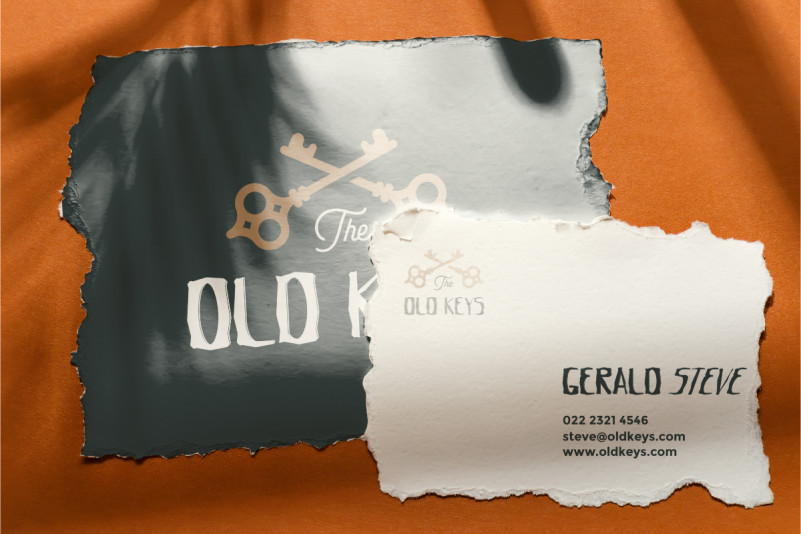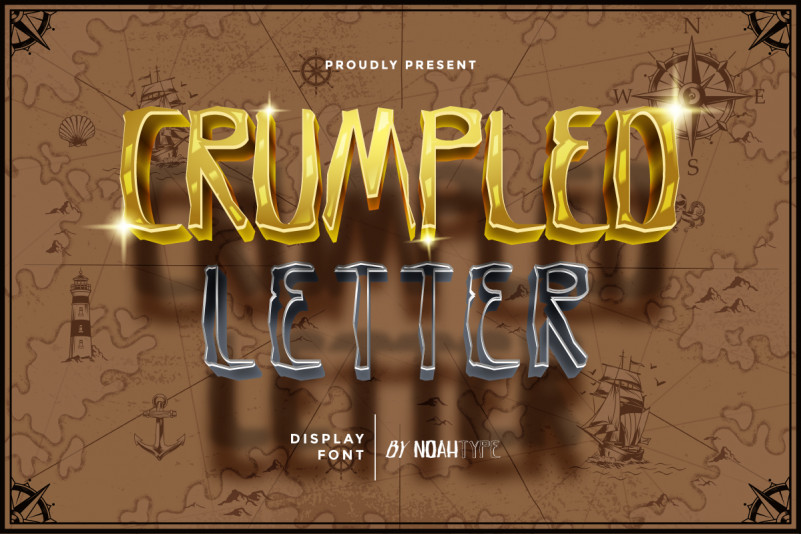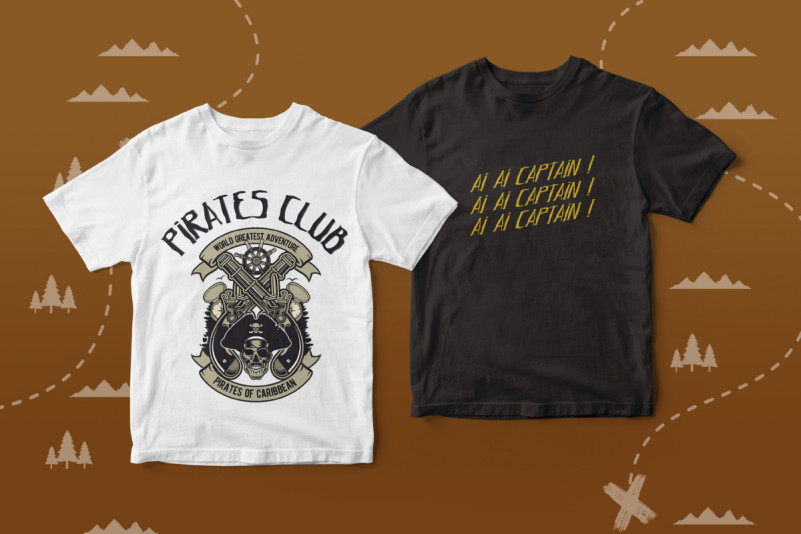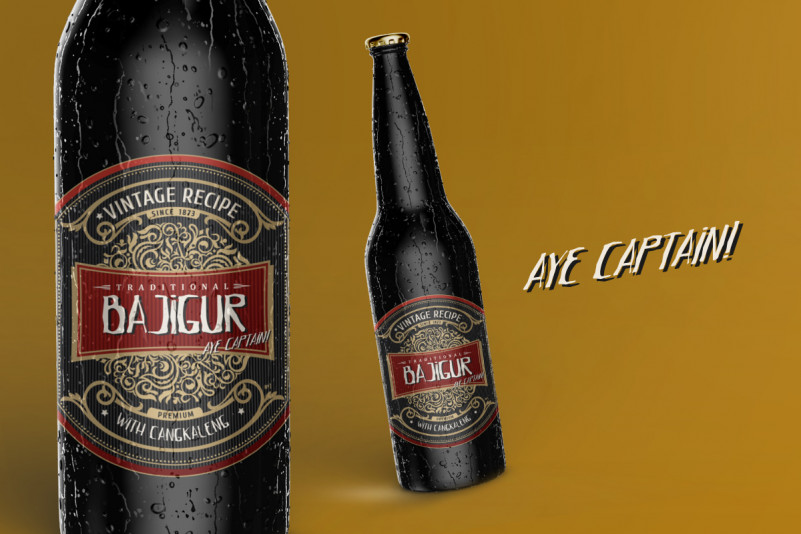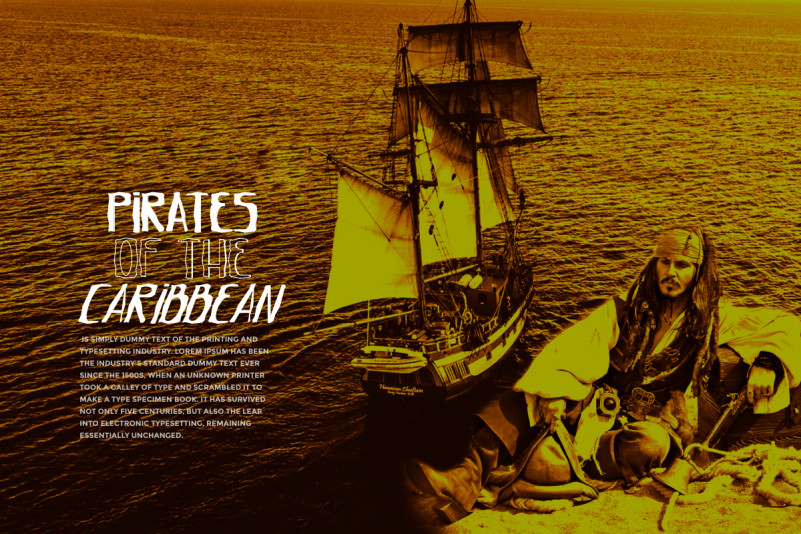
Crumpled Letter Font
Crumpled Letter Display Font
This is a unique display font with five great styles. The font was inspired from vintage classic lettering. It has a unique style that will bring the special effect to the design. It will works for events, wedding, branding, artist, make up, and any other fun things. Crumpled Letter includes full set of Uppercase and Lowercase Basic Characters, Numerals and Punctuation. The font will also works for outdoor, fashion products, camping, adventure style. The font is perfect for many projects, headlines, logos, poster, tittle, products, etc